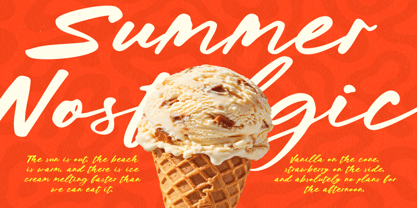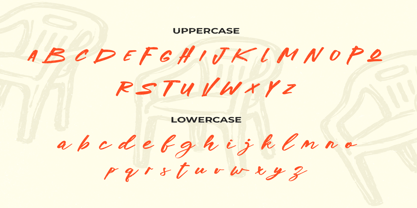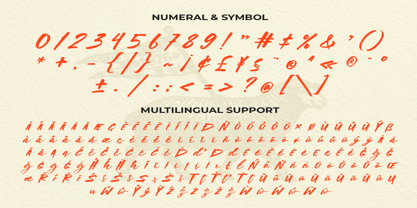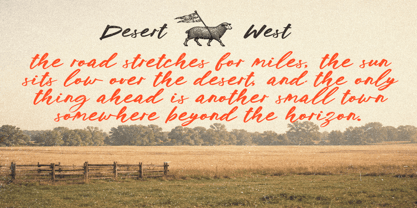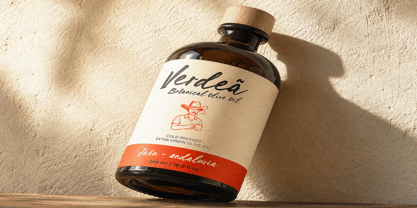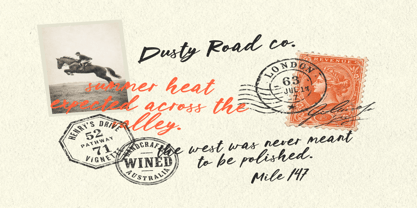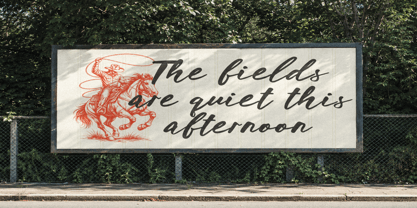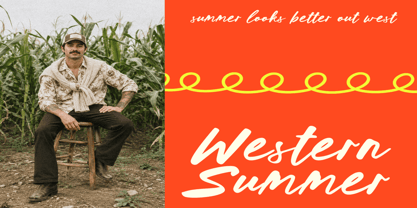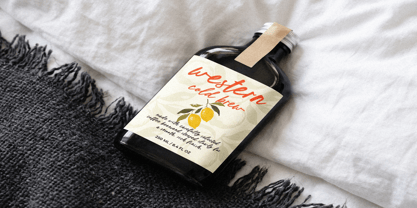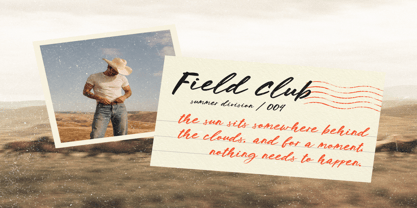
Somerset
by Vampstudio
The Somerset Font Family was designed by Irfan syah and published by Vampstudio. Somerset contains 1 styles. More about this family
Somerset is an expressive handwritten script font designed to infuse authentic warmth, rustic character, and effortless flow into your creative designs. Built with smooth marker stroke movement, natural letter connections, and casual cursive loops, this font captures a relaxed yet stylish aesthetic.
Whether you are crafting artisan food packaging, vintage-inspired product labels, summer event posters, rustic cafe menus, social media graphics, or personal quote artwork, Somerset provides an inviting hand-lettered feel that connects with your audience. It includes full uppercase and lowercase character sets, numbers, and extended punctuation.